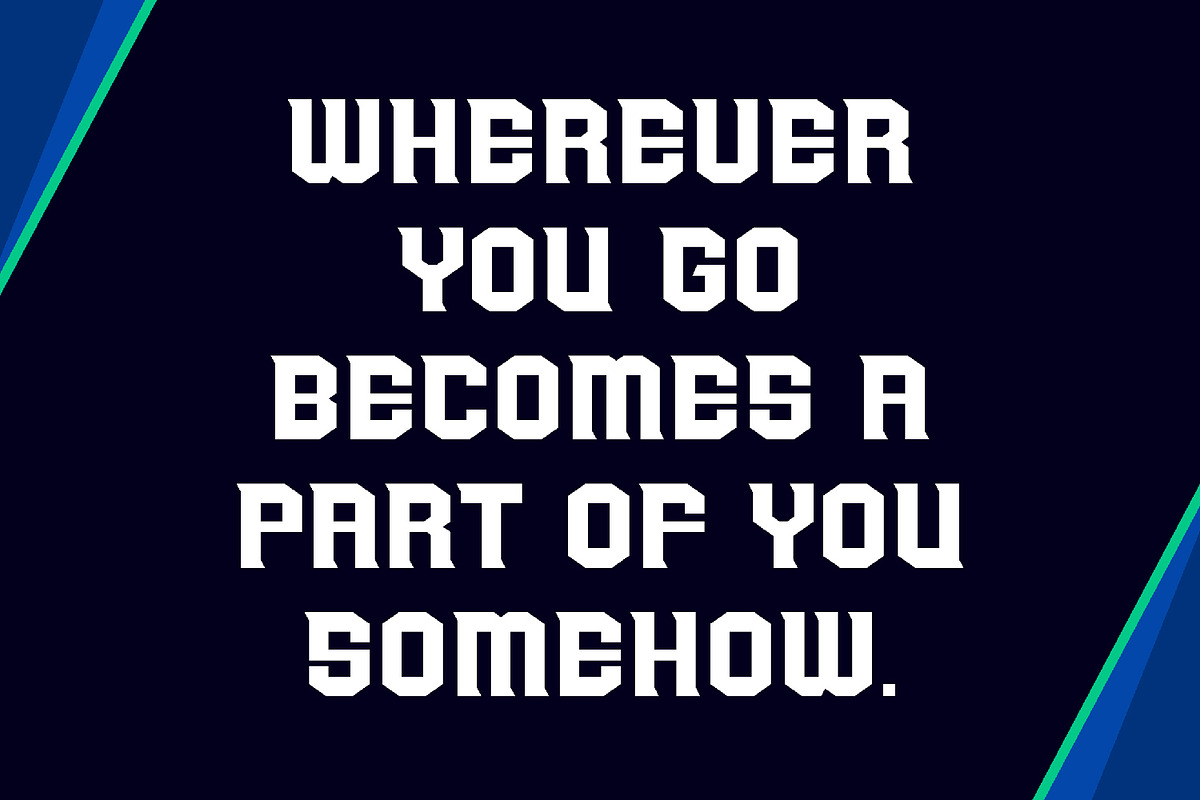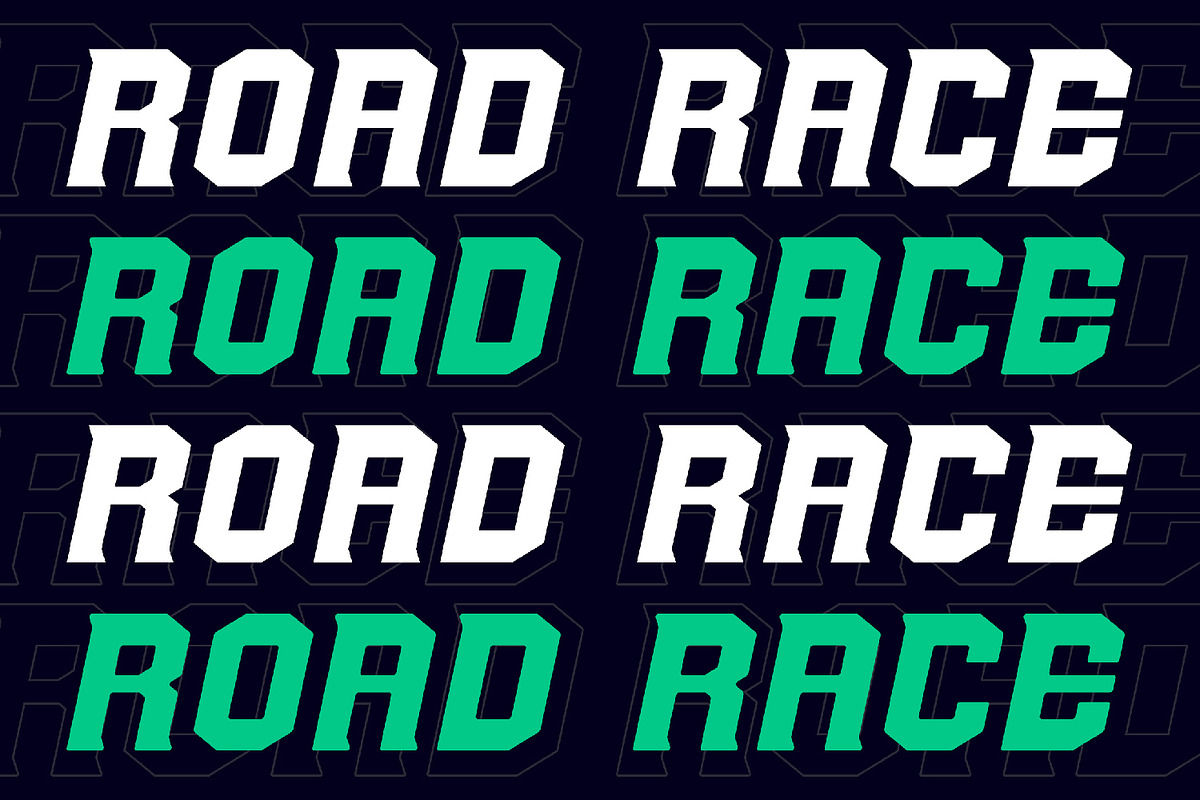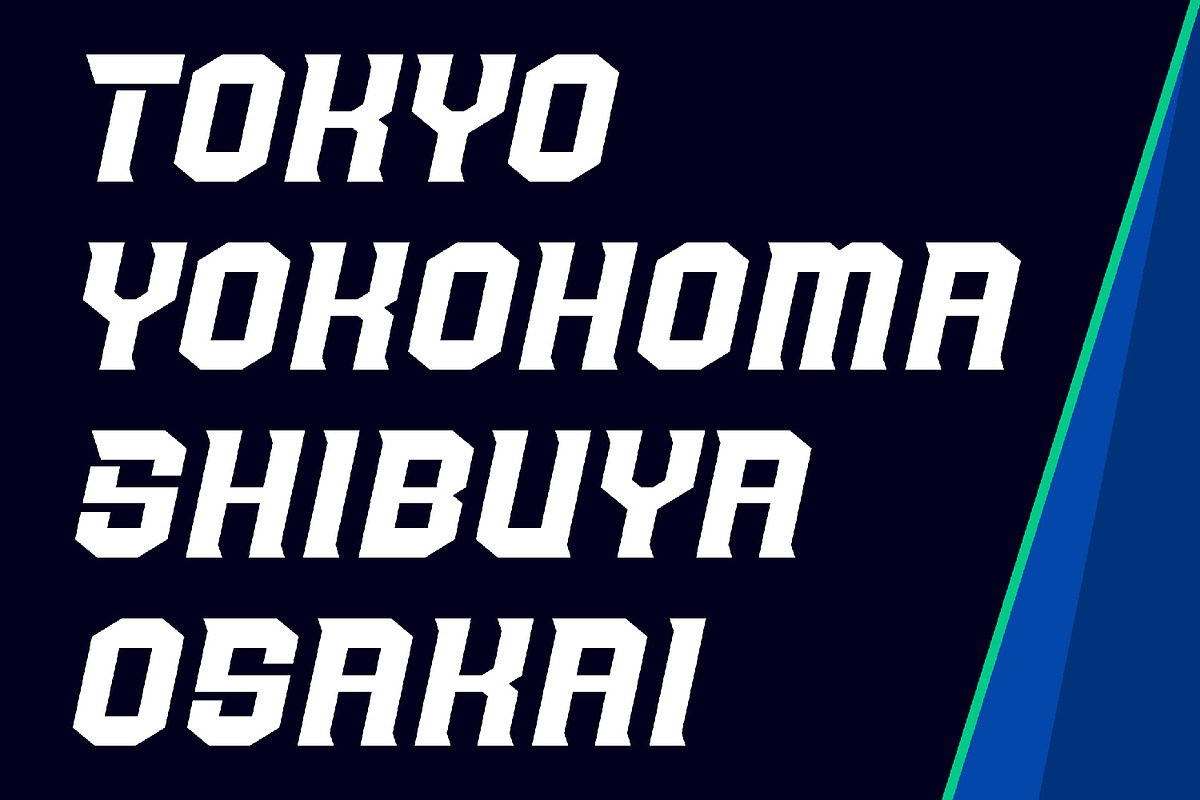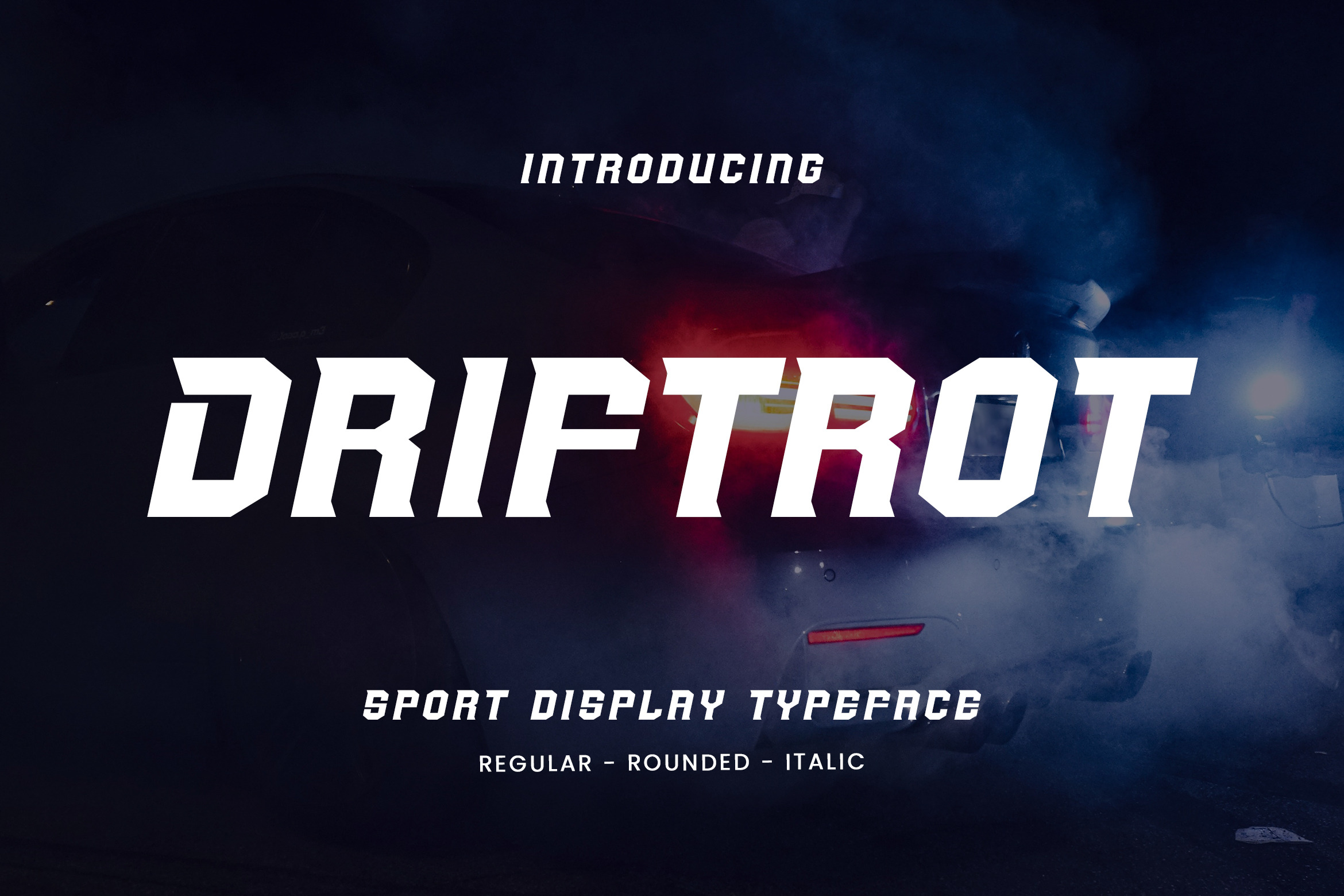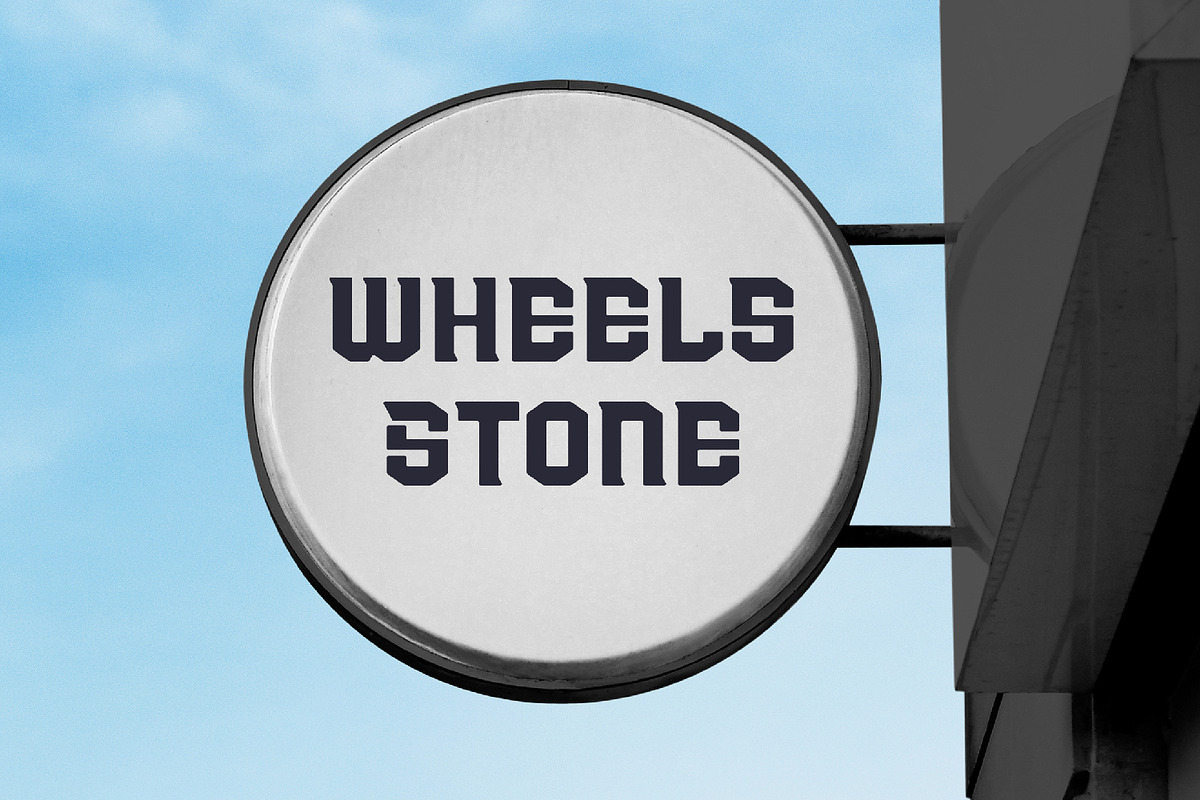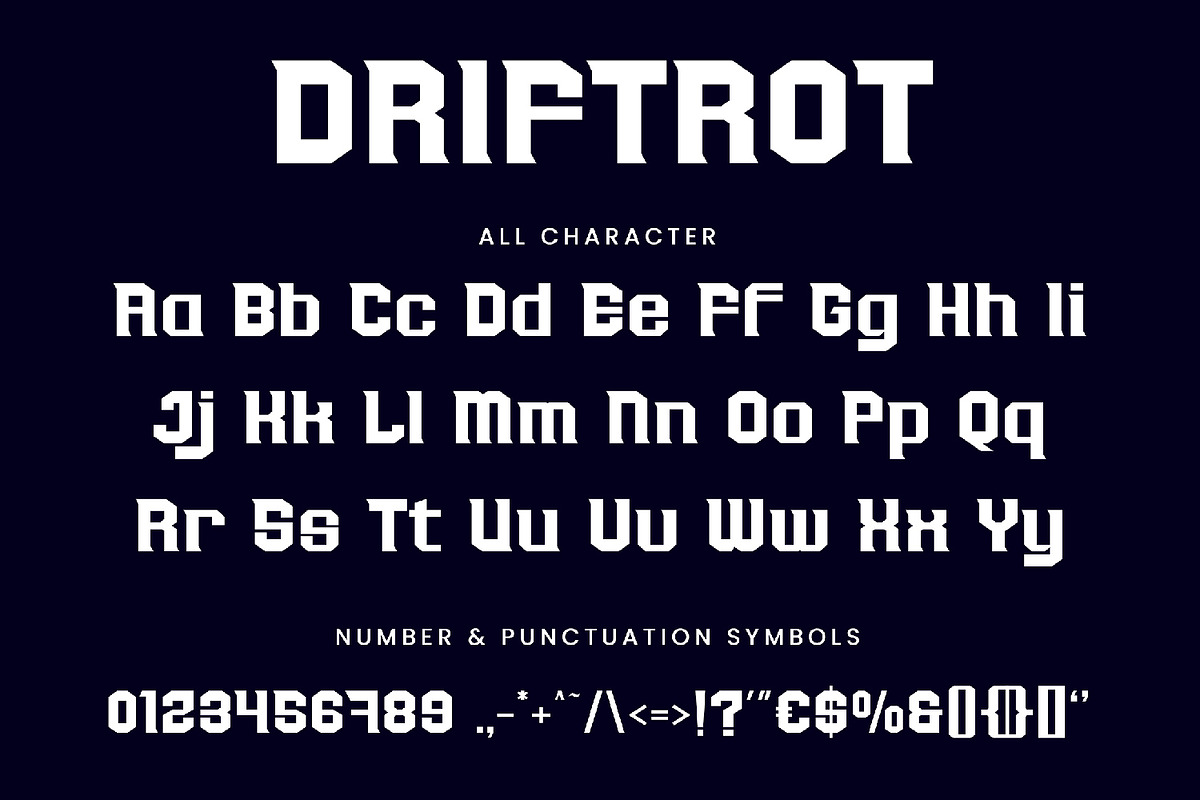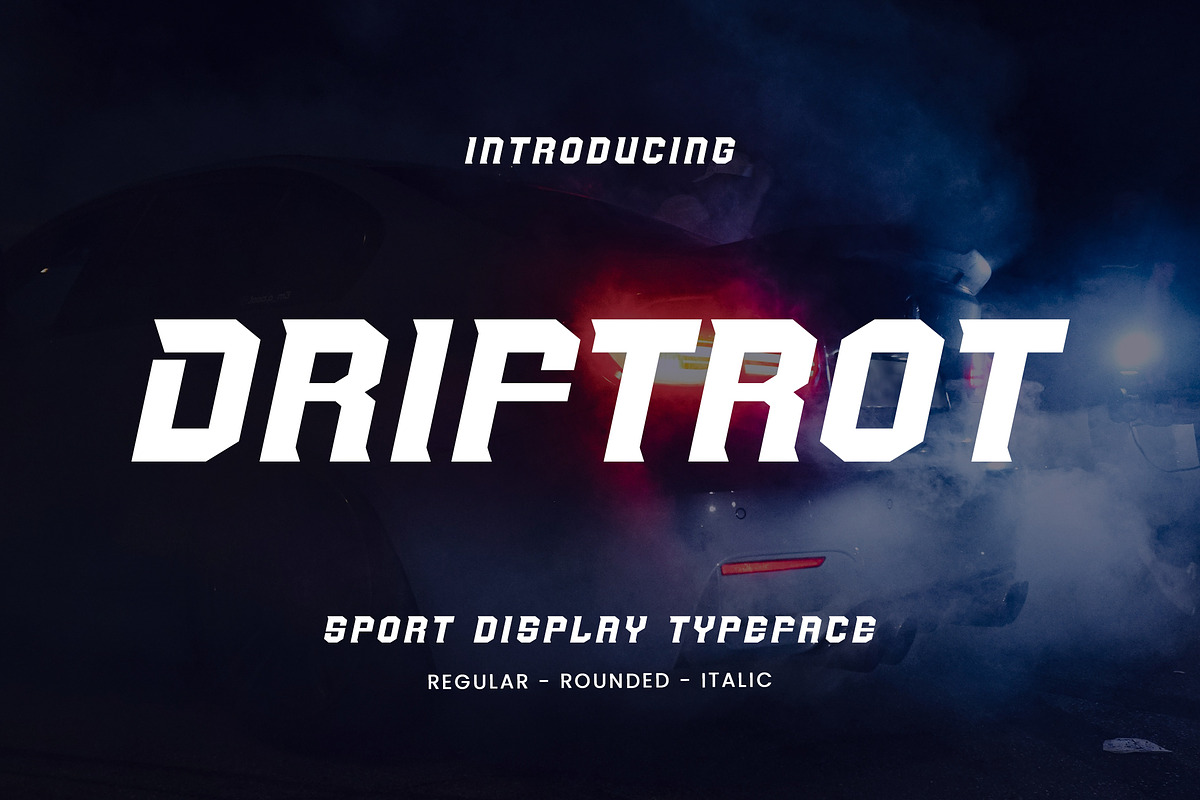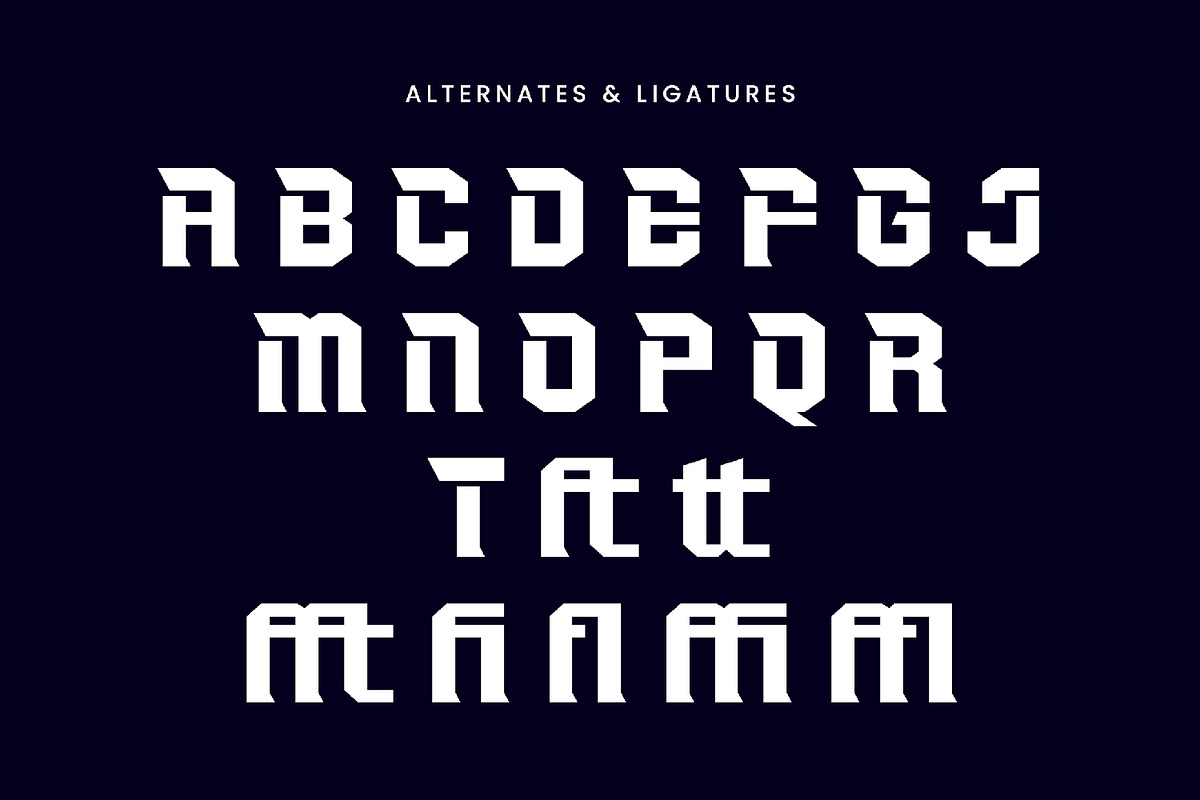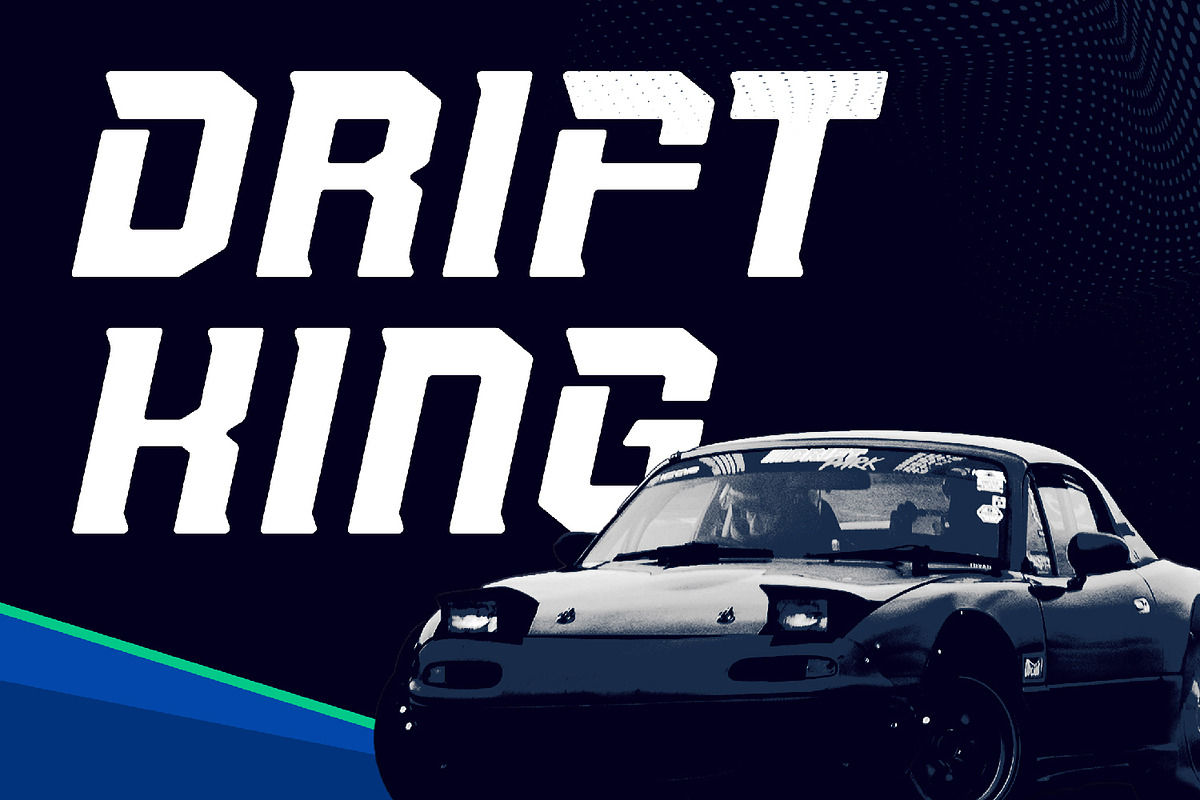
Driftrot - Sporty Display Font
Driftrot - Sporty Display Font contains a lowercase, uppercase, symbol, and also supports multi-language. There’s a lot of ligature in this font. Driftrot - Sporty Display Font also comes with ligatures, stylistic alternates and many more. this font suitable for fashion, branding, catalog and other design that you want.